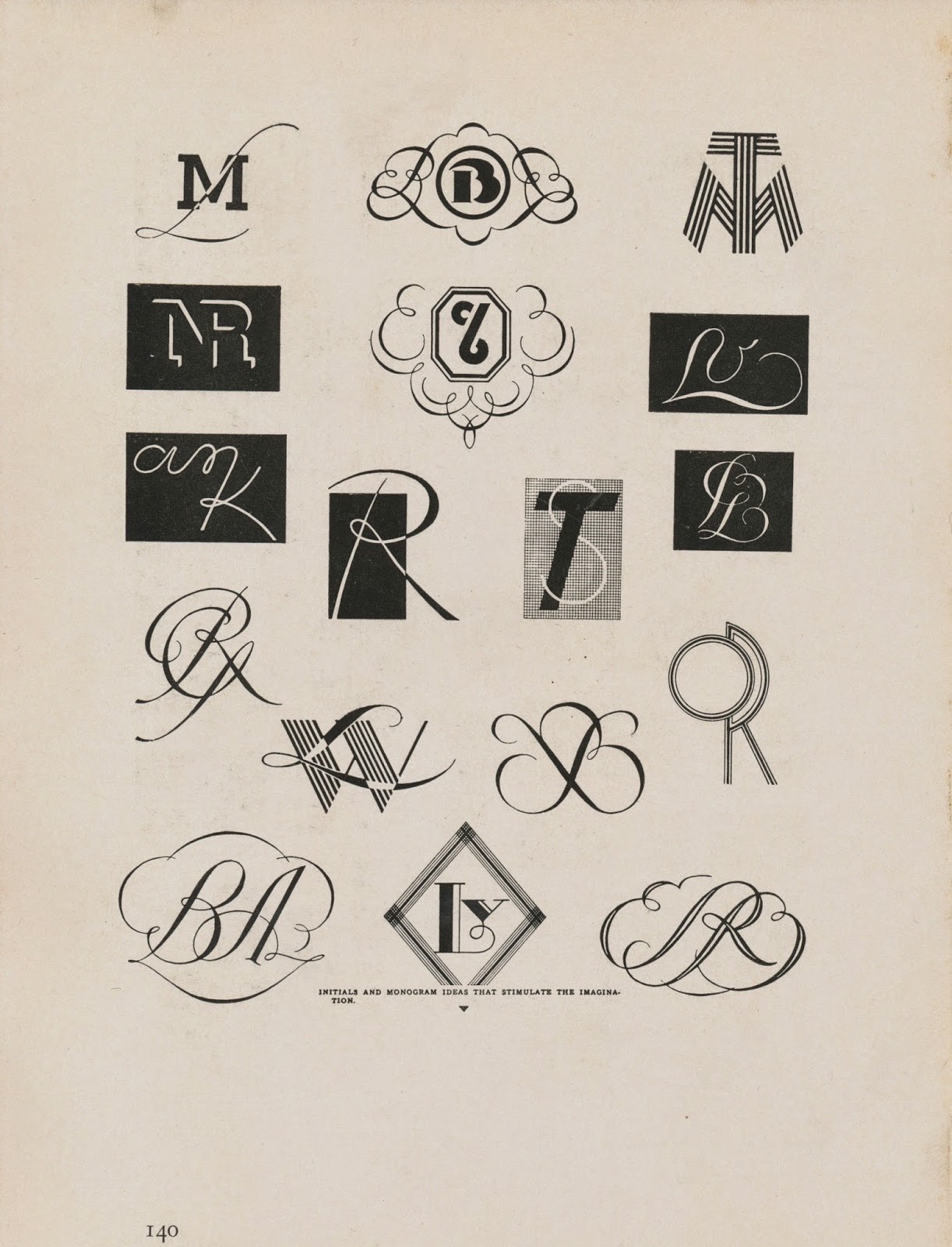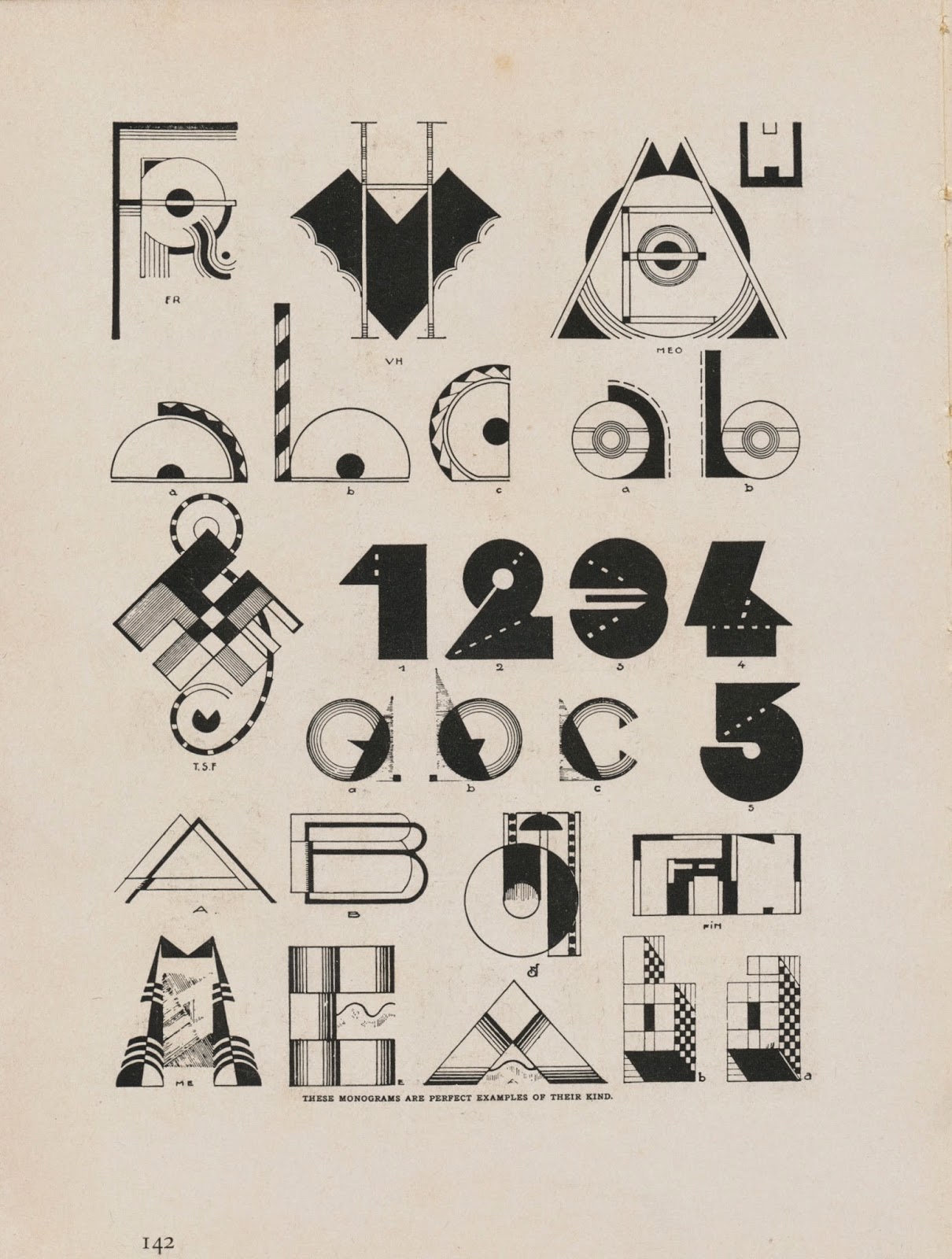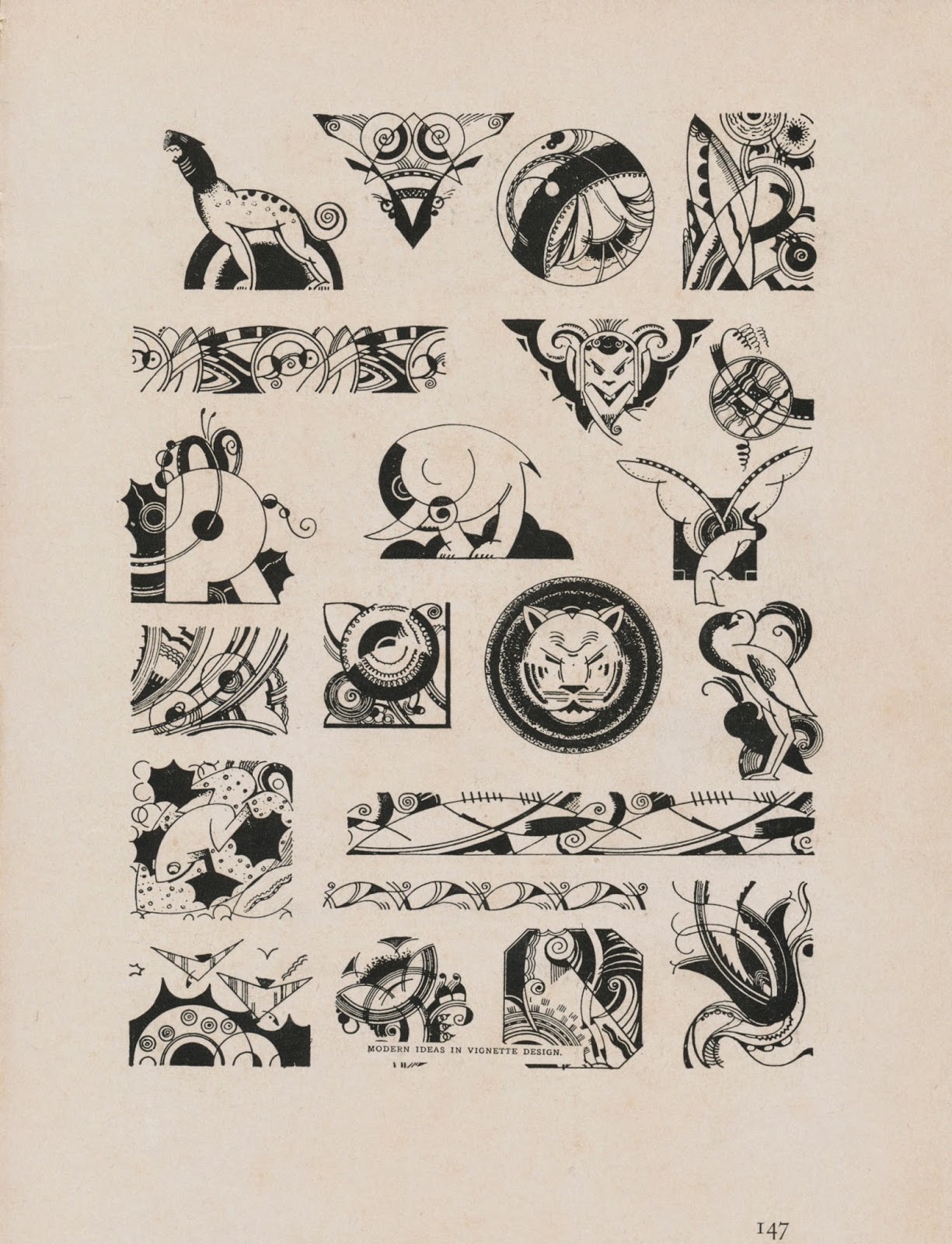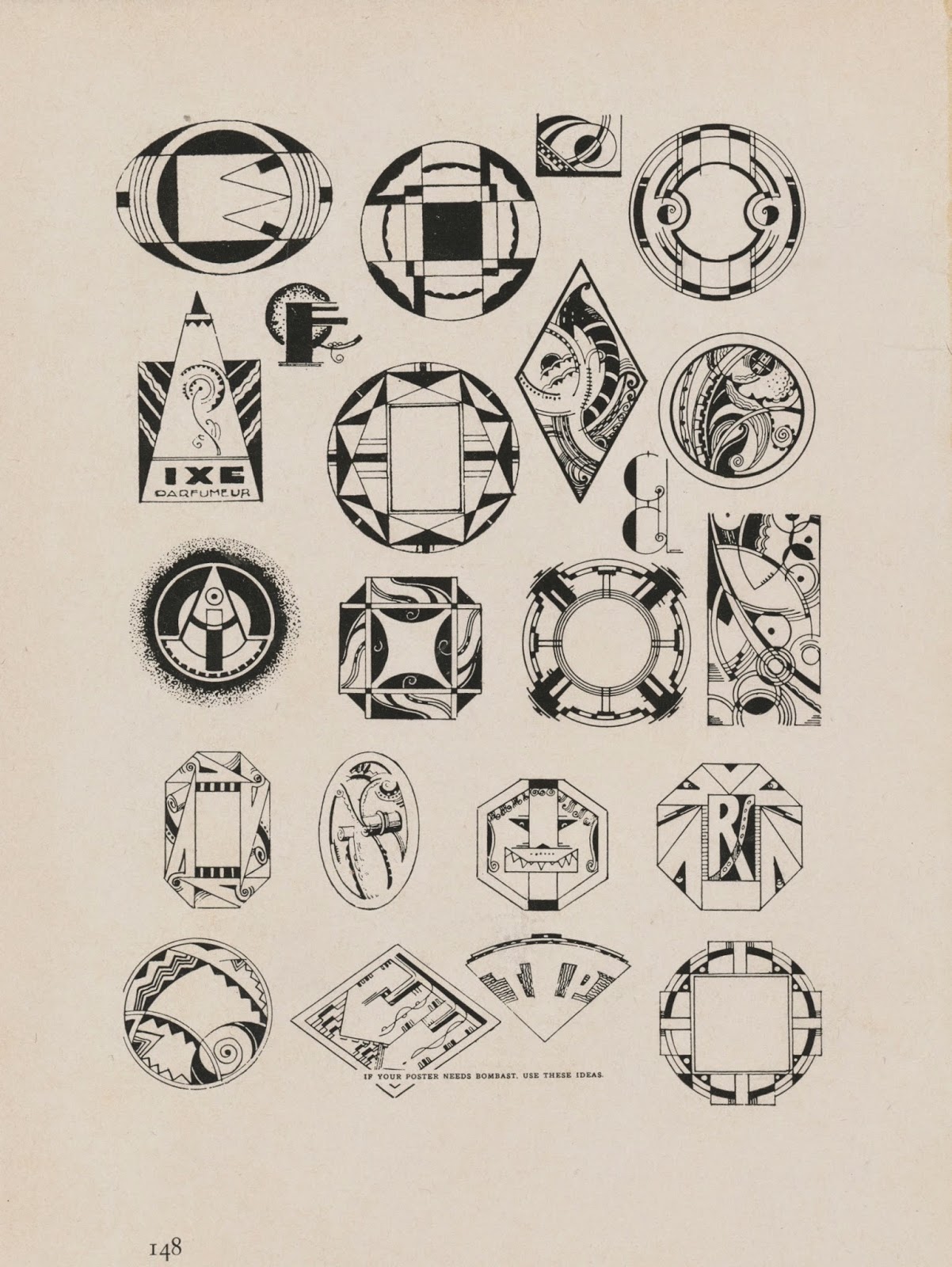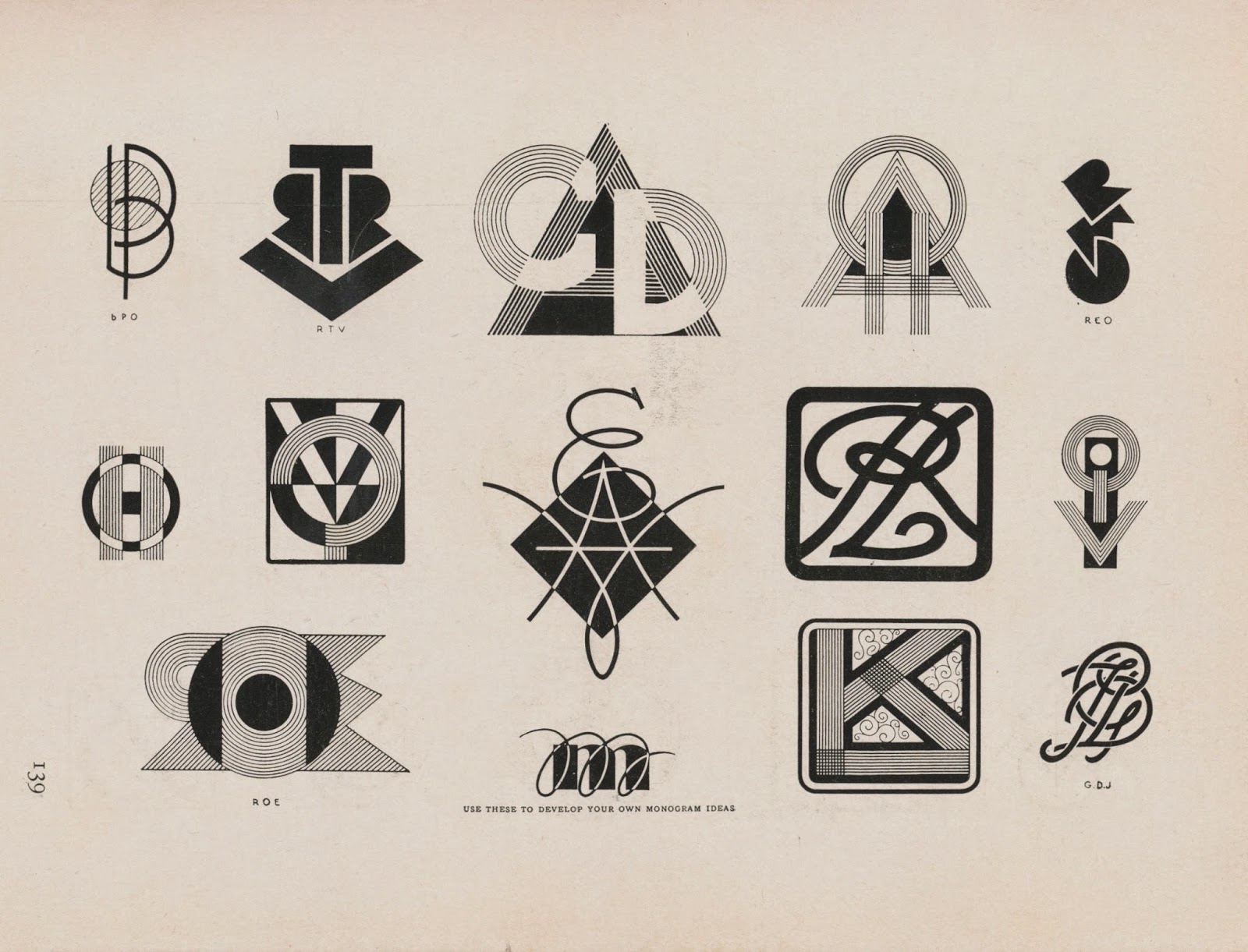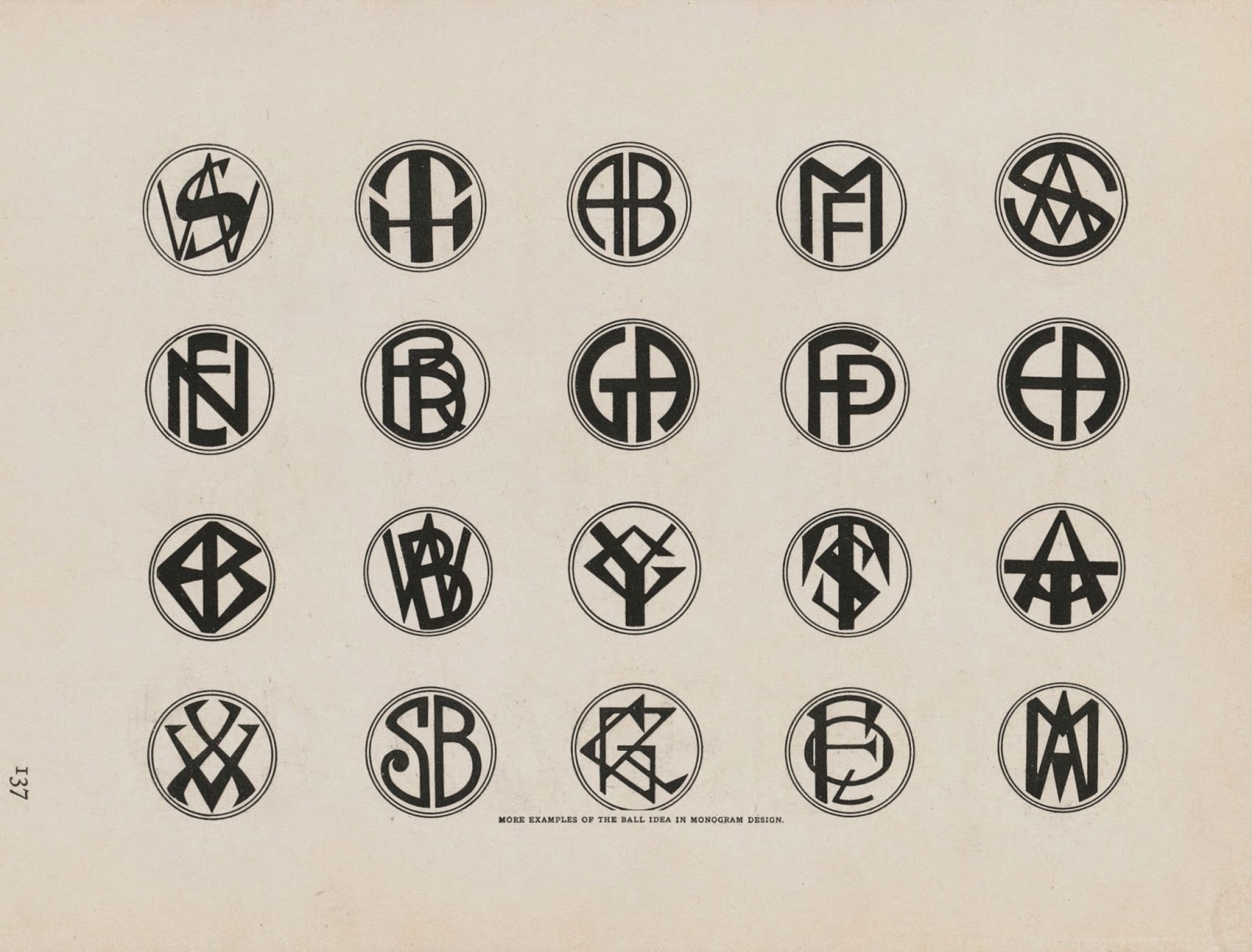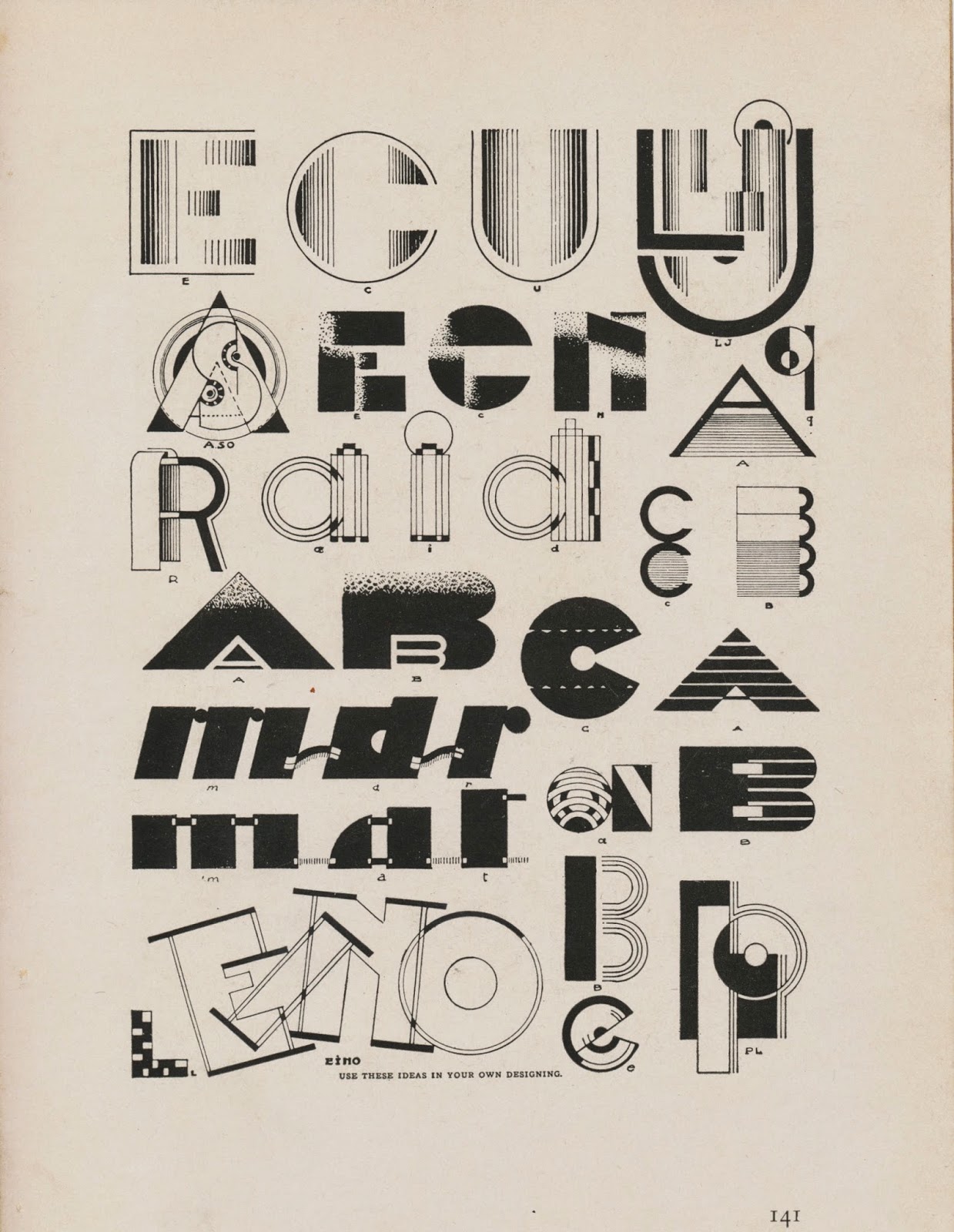
February 15, 1864, Forks, Pennsylvania – December 1, 1918, Mifflin, Ohio
1880 United States Federal Census
Fishing Creek, Pennsylvania
Name / Age
John Zaner 60
Hannah Zaner 54
Hattie Zaner 18
Charles Zaner 16
Loyd Zaner 14
The Columbian
(Bloomsburg, Pennsylvania)
October 26, 1883
Class XIII—Fine Arts Penmanship and Designs
Lion Penmanship, C P Zahner [sic] 1 00
Horse Penmanship, C.P. Zaner 1 00
Zaner’s Gems of Flourishing
C. P. Zaner
1888
The Journal of the Senate of the State of Ohio
February 12, 1890
…C. P. Zaner, engrossing memorial for Thos. Q. Ashburn, $15.00
The Columbian
(Bloomsburg, Pennsylvania)
September 18, 1891
We have received a fine Art Catalogue form Zaner, Kelchner, and Blaser [sic], proprietors of the Zanerian Art College. They founded their school of Penmanship at Columbus in 1888. During the three years of their progress they have had students from seventeen different states besides the District of Columbia and Canada. Messrs. Zaner and Kelchner are from this county, where they have hosts of friends who are glad to learn of their success. They began life empty handed and their success is due only to deserved merit as accomplished by their untiring energies.
Penman’s Art Journal and Penman’s Gazette
November 1891
Three Skillful Penmen.
C. P. Zaner, L. M. Kelchner and E. W. Bloser, of Columbus, Ohio.
We present herewith the portraits of three young men whose brilliant work has won them a most enviable distinction among all who appreciated the penman’s art. They are C. P. Zaner, L. M. Kelchner and E. W. Bloser, known under the corporate name of the Zanerian Authors and Artists, and directors of the Zanerian Art College, Columbus, O.
All three of these gentlemen are Pennsylvanians by birth, and all were raised on a farm, their school training being only what the facilities of the public schools of their respective localities could afford. Mr. Zaner’s home was near Forks, Pa. He was born there on Feb. 15, 1864, and was nineteen when he left to strike out in the world for himself. He taught penmanship a little in 1884, but gave it up until 1886, when he settled down steadily and has been at it continuously since. In 1888 he published his popular “Gems of Flourishing,” and in the same year founded the Zanerian College. Almost from the start his work won recognition from the old heads of the profession. It is distinguished by boldness and sureness of stroke, without sacrifice of delicacy. Mr. Zaner wields an uncommonly versatile pen and shows equal fertility of resource in the lines of script, flourishing and ornamental work. Many of his bright productions have appeared in The Journal and we have made arrangements by which he is to become a regular monthly contributor. The first of a series of illustrated papers by him begins in this number.
Mr. Zaner has been a constant reader of the penman’s papers, and attributes his skill largely to their influence. He found the Spencerian Compendium of much assistance in getting the “finishing touches.”
L. M. Kelchner will be thirty years old on the eighth of next month. His life was spent on a farm at Light Street, Pa., until he was eighteen years old. The next eight years he spent running a flour mill. It was not until 1888 that he began to teach penmanship professionally, though he had dabbled in it a little some time before. He became a joint proprietor of the Zanerian College in 1890.
Mr. Kelchner also thanks the penmanship press chiefly for his ability in that line. Another fruitful source of inspiration he found to be specimens from noted penman purchased by him. While he is a good writer and general penman, Mr. Kelchner excels as a flourisher, and has made many handsome designs of this kind. By far the most striking design we have ever seen from his pen is a large piece we now have in hand and expect to produce next month. It will be the first by “The Journal’s Galaxy of Flourishers,” which includes about twenty of the best known penmen in this line in the world.
E. W. Bloser was born at Plainfield, Pa., on Nov. 6, 1865. In 1883 he moved to Ohio, became interested in penmanship, and has been following it professionally ever since. He became a third owner in the Zanerian College only a few months since.
We show a specimen of Mr. Bloser’s work in this number. It is of the kind on which his reputation rests, his forte being script work in general and body writing in particular. His pen is capable of turning a remarkably smooth and graceful line, as our readers may see.
The work of the institution of which these three young gentlemen are the owners and directors can only be properly described as brilliant. Though established but a few years it already number among its graduates many young men and women who are making their influence felt as teachers and artists. It is The Journal’s business to keep abreast of such matters, and it is The Journal’s pleasure to give credit to those who win success by deserving it. That this success did not come without hard work, but was born of the faith and pluck which beat down all barriers, may be gleaned from Mr. Zaner’s own account of the beginnings of the now highly successful enterprise with which he is identified:
“We started with one student and enough money to buy bread for one. We worked from seven o’clock in the morning until nine at night. We contrived means of letting people know of our school (if such it could by called) and of the work we were capable of doing. We were willing to sow and trust for the harvest. We rested not by the way, but toiled on. Slowly the fruit of our labors began to ripen. Students began to come in now and then. Friends were friends indeed, for through them we received support we could not buy. Prospects began to brightened, hopes materialized and bills vanish. A little surplus cash and credit aided in mailing another circular in which our work appeared to better advantage and our purpose in terms unmistakable. Thus it was that our work began. Our rooms were getting too small for the number of students seeking instruction. We decided to accommodate all first-class comers. We secured larger, brighter, cleaner rooms. We then began to realize that two hands and one brain were inadequate for the work at hand.”
The Columbian
(Bloomsburg, Pennsylvania)
July 22, 1892
Prof. C. P. Zaner, proprietor of the Zanerian Art School at Columbus, Ohio, arrived here Friday of last week, and remained with his parents, Mr. and Mrs. John Zaner of Forks, over Sunday. “Charles,” by which name he is more familiarly known, is first in the art profession of penmanship. He left via New York on his return home Monday.